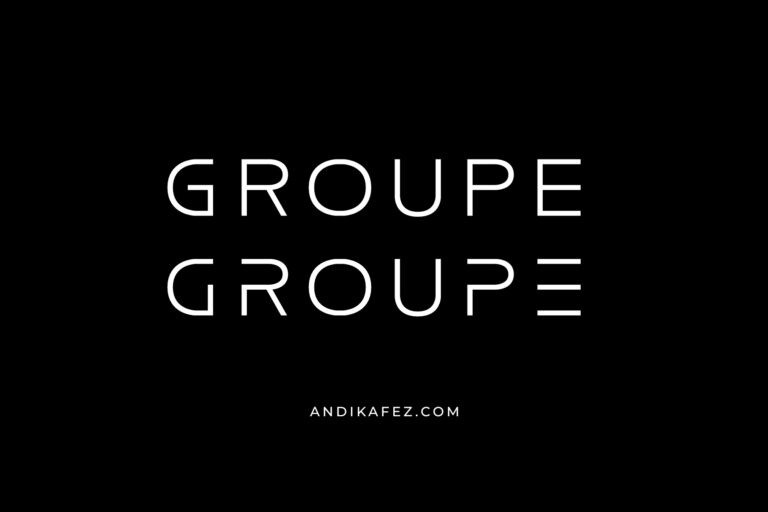
Groupe Logotype Font
Groupe Logotype Display Font is a new font for design of minimalistic logos. Made from font designer named andikafez. Groupe Logotype contains several weights to give the user an interesting experience when using it. This unique sans serif font family is very good for branding, logo projects, headings, advertising, packaging, web design, print goods and other creative projects.